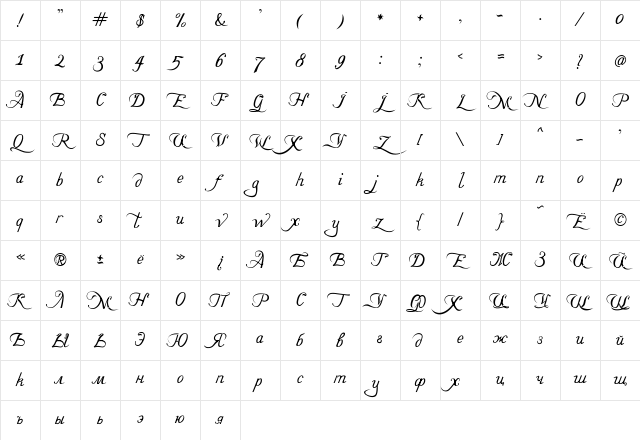
SeaWolf Normal Free Font
SeaWolf Normal
Design Context for SeaWolf
SeaWolf is a composed and adaptable typeface that performs quietly and consistently across a wide range of design contexts.